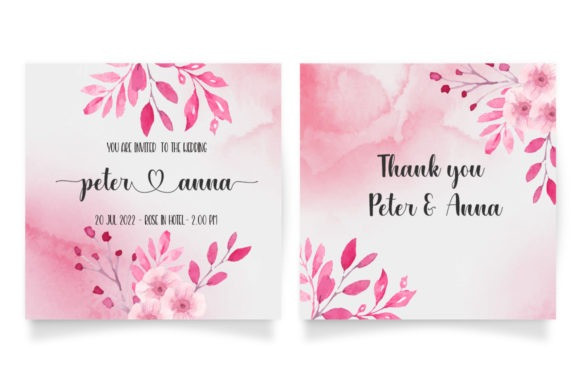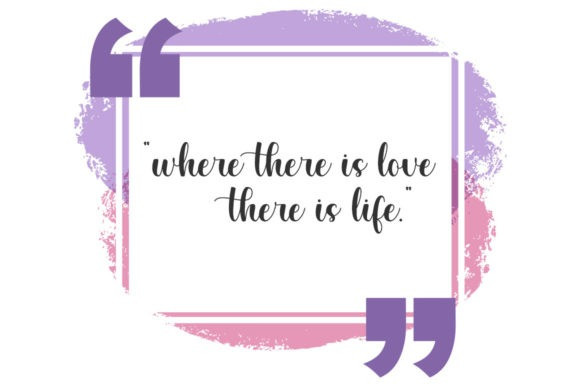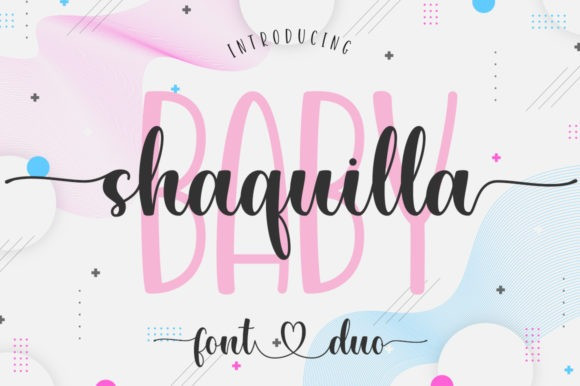
Baby Shaquilla Font
Baby Shaquilla Font Duo is a lovely and delicate duo font (sans serif and script). Its distinct and refined letters make this font a masterpiece. Fall in love with its incredibly versatile style and use it to create spectacular designs! This font is PUA encoded, which means you can access all of the glyphs and swashes with ease!